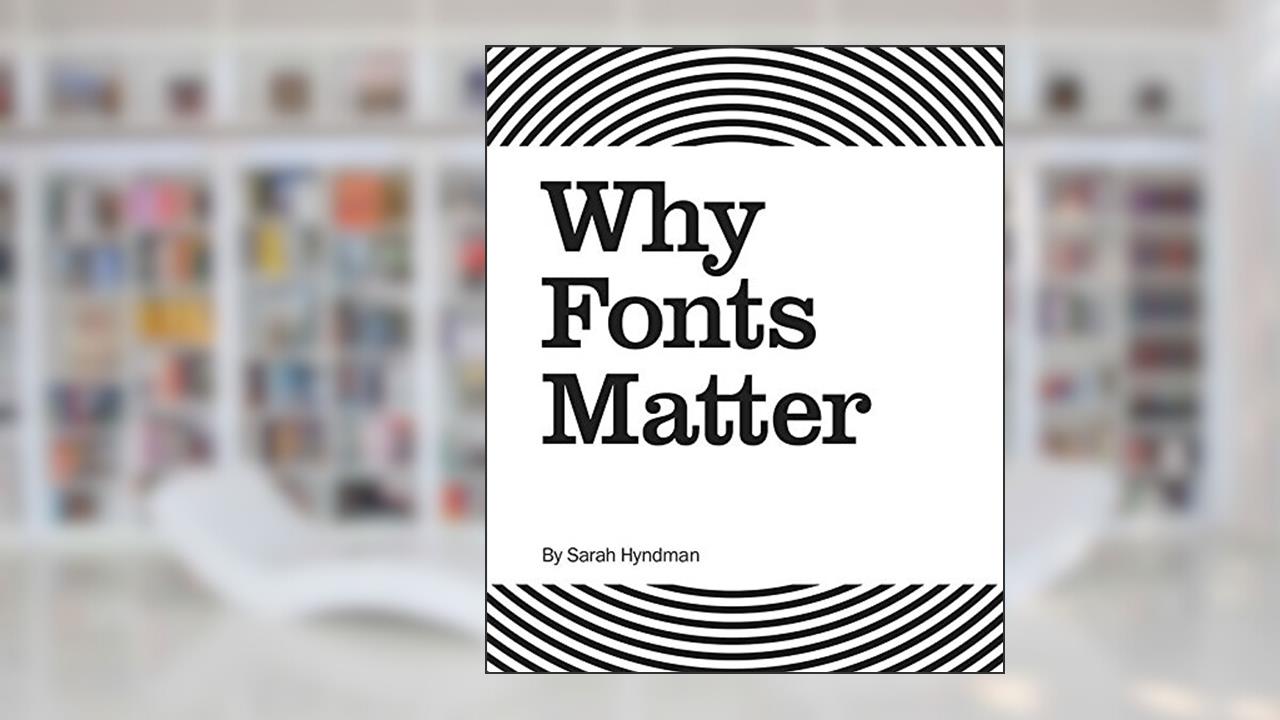
Why Fonts Matter
Sarah Hyndman
Why Fonts Matter by Sarah Hyndman is not just a book about typography; it's an exhilarating journey into the very essence of visual communication. Believe it or not, the mere choice of a font can evoke strong emotions, change perceptions, and even influence decisions. With each letter you read, the typeface you encounter whispers secrets about the character, tone, and mood of the text. Hyndman daringly unpacks this enigmatic world, helping us grasp the extraordinary power fonts wield in our daily lives.
The exploration begins with an undeniable question: why do fonts matter? Dive into the pages, and you'll soon realize that every typographic choice-whether it's the sleekness of a sans-serif or the classic charm of a serif-tells a story. Fonts are not merely aesthetic decisions; they are conduits of meaning. They create emotional connections that can have a profound impact on our interactions with brands, books, and even each other. 🌟
In Why Fonts Matter, readers are treated to an engaging tapestry of research, personal anecdotes, and stunning visual examples. Hyndman doesn't just preach; she takes you by the hand and leads you through thought experiments that explore how typography shapes our experiences. From advertising slogans that sell us dreams to the political banners that stir our passions, each font contributes a unique voice to the narrative. She draws upon her experiences as a designer, making the text both relatable and enlightening.
The resonance of the book extends far beyond designers and typographers. It invites anyone who communicates visually to reconsider their own choices. How often do you notice the fonts in your emails or social media posts? Are you conveying the right message? It's a wake-up call-a challenge to be more mindful of how even the smallest details can sway our audience.
Comments from readers reinforce Hyndman's insights. Some express exhilaration at discovering the emotional undercurrents tied to their font preferences. "I never realized I had such strong feelings about fonts until I read this," remarked one reviewer, capturing the essence of that enlightening cognitive dissonance. Conversely, a few critics argue that the book can sometimes feel overly simplistic for seasoned designers, but this should not deter your curiosity. Even the most experienced can find joy in revisiting the roots of their craft.
The book also touches on the historical context of typography, specifically how different eras reflect societal changes, from the ornate script of the Middle Ages to the minimalist designs of the digital age. In a world rife with visual noise, Hyndman implores us to find clarity through conscious typographical choices. The stakes are high-choose wisely, and you could transform a mundane message into something extraordinary.
So, why does the title strike such a deep chord? Because it speaks to a universal truth: our world is full of messages, and how we choose to present them can make all the difference. As we delve into this vibrant exploration, you'll find your own perceptions reshaped.
In the end, Why Fonts Matter does more than teach about type; it invites you to embark on an exhilarating quest of visual discovery. You will never look at a font the same way again. The excitement of immersing yourself in this revelation awakens a sense of responsibility-be the communicator who chooses wisely! ✨️